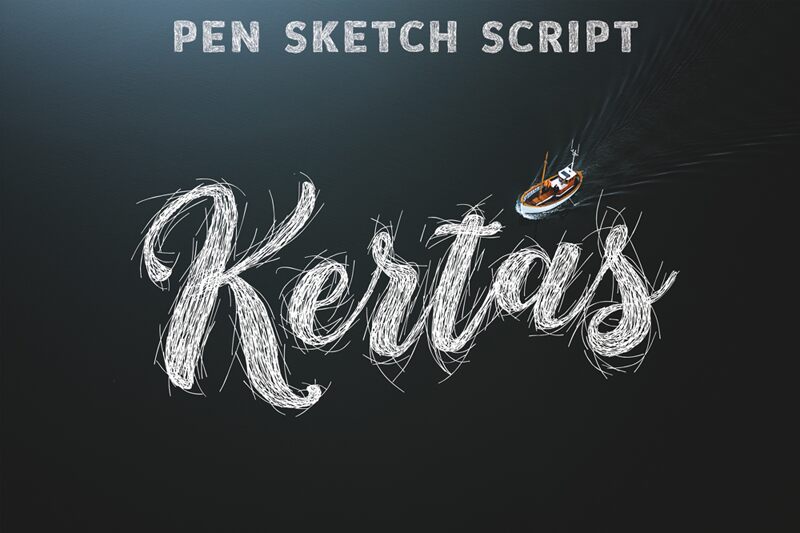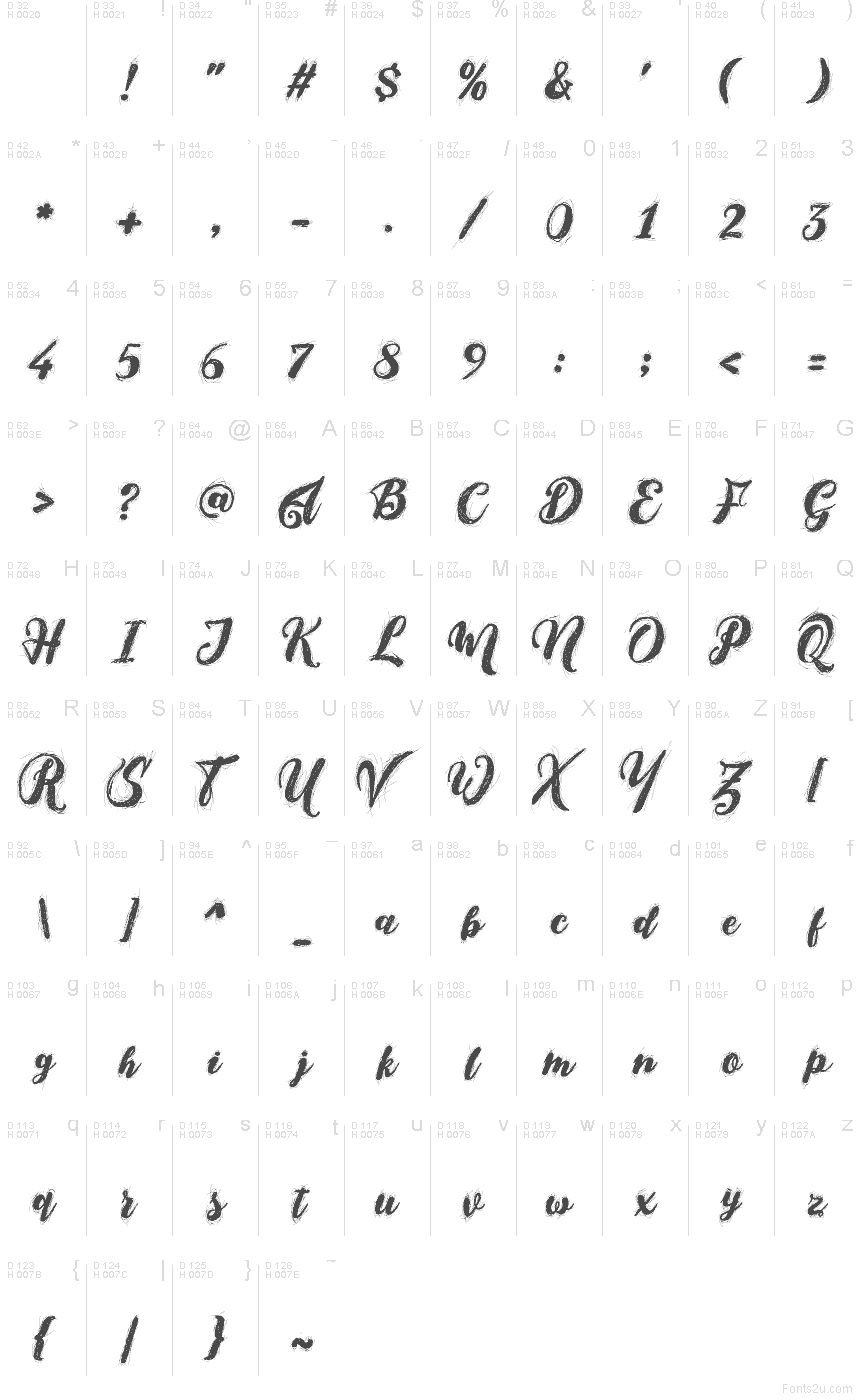
Kertas by Darwin Huayan Harahap is a free eroded brush display font with oversized loops and a restless, scratched surface. Its sweeping letters are dark at the core, then fray into wiry marks that resemble rapid sketch lines.
Independent fashion labels and music venues can use its raw motion for logos, posters, and merchandise. Every stroke retains the urgency of a draft. On album art, the lettering can become part of the illustration, like ink dragged across the image.